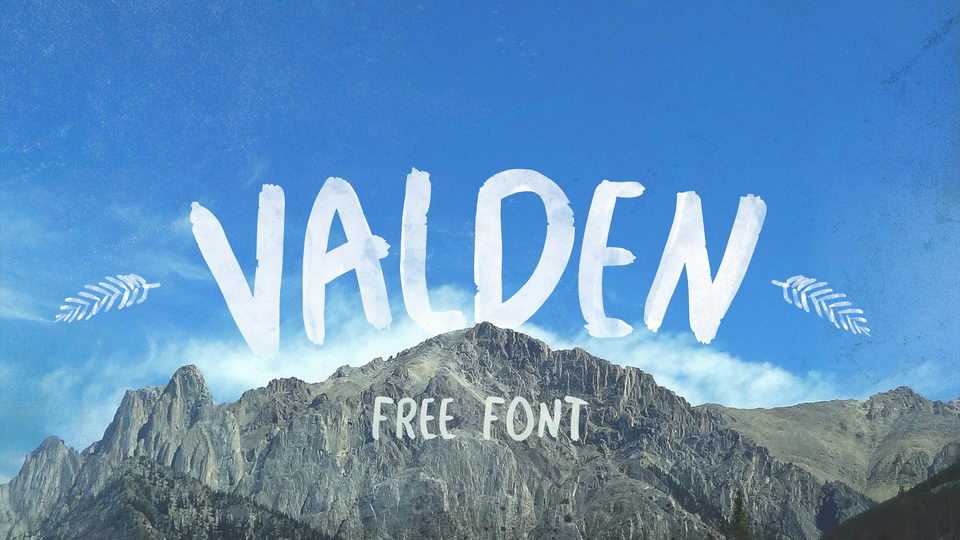
Download Valden font, a hand painted brush typeface with natural texture and flow. Valden font perfectly fits for crafts, posters, headlines, quotes, t-shirt prints and more.
Designer: Piotr Kucharski